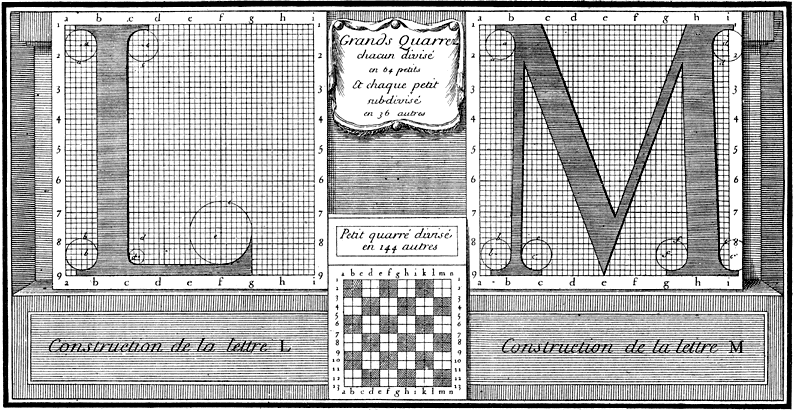
Faces i wish were digitized
i'll be the first to admit i don't know everything there is to know about type... but i keep finding great faces that seem to exist only in metal or are otherwise unavailable in a quality digital rendring. Just a couple:
Oldrich Menhart's Manuscript
Hermann Zapf's Civilite
Inland Type Foundry's Commercial Script
I think that the Inland Script is public domain by now, but there are most likely restrictions on digitizing the other two (for commercial resale anyway). So my question is, what are some other great faces that have yet to become available generally in digital format?
Hasn't Manuscript already been digitized? I seem remember some discussion about it a few months ago…
I'm not sure that it would be appropriate to revive a face from a living designer. I also know of a few cases of children of designers who got peeved when their parents' typefaces suddenly appeared out of the blue in digital format (for sale by third parties, sometimes without even proper attribution).
Best bet would be to contact the designer or the family directly, in my opinion. Who knows? Maybe Hermann Zapf is just waiting for the right offer for his Civilite…
Hasn't Manuscript already been digitized?
It has... but the only "decent" (IMO) digitization of it is Franko Luin's version and it seems to be unavailable most likely for copyright reasons. I don't much like Alex White's version, a bit too gloopy for my taste.
Maybe Hermann Zapf is just waiting for the right offer for his Civilite…
Doesn't Linotype have a good working relationship with Zapf? I'd love to see them offer develop this one.
I recently exchanged a few kidneys for the monumental F. H. Ernst Schneidler book [scrolly poly] featuring simply stunning specimens of his entire body of work. I'm particularly fond of his Juniperus-Antiqua and of course his blackletters. It also includes every character designed for Legende, many of which never made it in. Schneidler is a master on the same level as Koch, Tiemann and Lange, and his fonts deserve wider recognition outside the German-speaking world.
I think that Schneidler deserves a better reputation inside the German-speaking world…
Are you going to start working on a Schneidler face?
Well, how about all those typefaces that need REdigitizing? Eg a lot of the Monotypes from the 80's... with those shoddy and limited kerning pairs and mostly inept contours.
BTW I plan on resurrecting a project I started in 1995 (I know, time flies...), a revival of a Van der Vossen woodcut font. Any issues re copyrights with that one. It's from the 20's so © should have lapsed by now. Or am I missing something here?
I'd love to have a good digital version of the Imprimerie Nationale's Cypriot typeface, and will probably make one for myself if I can find the time. I think it is one of the most beautiful of all the IN 'exotic' types: some of the forms have the freshness of Matisse papercuts.
My first real digitization will be some letters by one of the local calligraphers in Atlanta. It will be a display italic with a range of contextual froof. As far as Schneidler goes, I don't know which company ended up with his stuff--either Linotype or Neufville, I suppose. I want to get better at digitizing before I go at something as institutional as a Schneidler face.
Oh, I can think of plenty of positive institutions. Good luck with the calligraphic face!
To me, very few old fonts are worth [re]digitizing; the effort is generally better spent on new stuff. But -as always- there are exceptions: Deberny #16 (which I'm actually co-working on, quite slowly though), Pascal (which Neufville has been working on, forever...) and Octavian.
John H: You probably mean the 12 point Cypriot (p237 in IN's 1990 specimen book), the one that looks like cave paintings? Because the 10 point (same page) seems like quite a boring monoline; and it seems to have been cut at a later date (and probably by a different hand), since the IN's 1905 specimen book (which I got my hands on recently - it's quite amazing) only shows the 12 (and shows it much better - p102) and the caption says only one size was available. Anyway, if you'd like a 600dpi scan (or 2000dpi photos) from the 1905 just let me know - although I guess chances are good you already own the book!
John B: I'm pretty sure the Schneidler stuff is with Linotype.
>Well, how about all those typefaces that need REdigitizing?
Not the same but similar. How is it that they get away with using the name?
civilite is less the name of a typeface, per se, as it is the name of a genre of typefaces based on a particular script hand. the urw civilite is just one version, H&FJ have their own version as well based on the Granjean model.
Civilité is just the name of the style - and not trademarkable.
BTW, remember this freaky "Goth Civilité"?